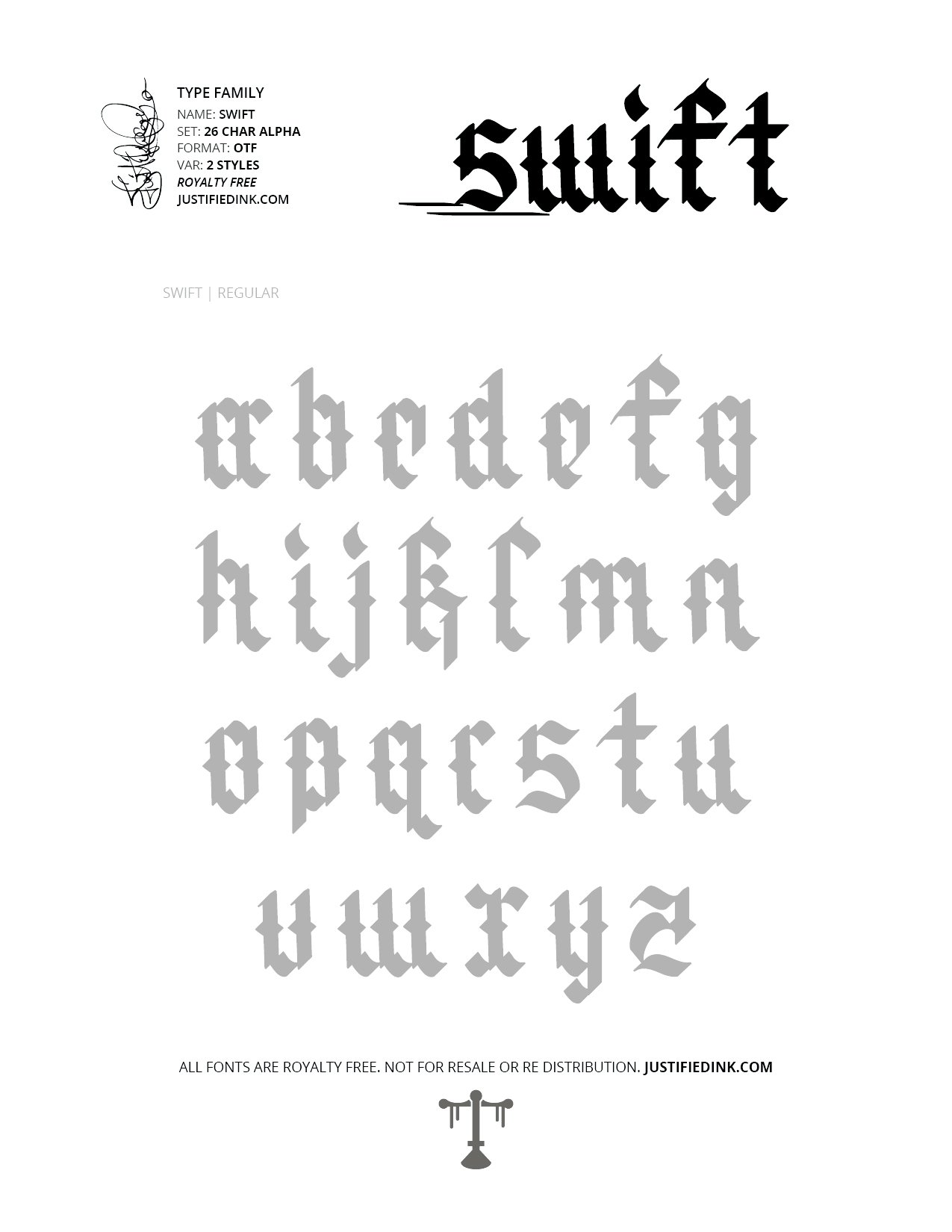
Swift (2 styles) - Custom Font by Justified Ink
Fast and furious, Swift is a modern blackletter style that only knows one thing: moving forward.
This font is part of the collection by Justified Ink, called Blackletter III. After 15+ years creating, I began to focus on building personal libraries of my work. Blackletter III is yet another amazing collection of 30 handmade fonts. Building off of the work done to create Blackletter II, this collection is specialized where it was created digitally. This features many classic styles such as gothic, fraktur, beneventan, and uncial. Additionally, this collection contains several other styles drawn from graffiti, hiphop, and indie type styles. It comes in a full set of 26 char alpha. Each font family has variations in styles and/or non-alpha chars.